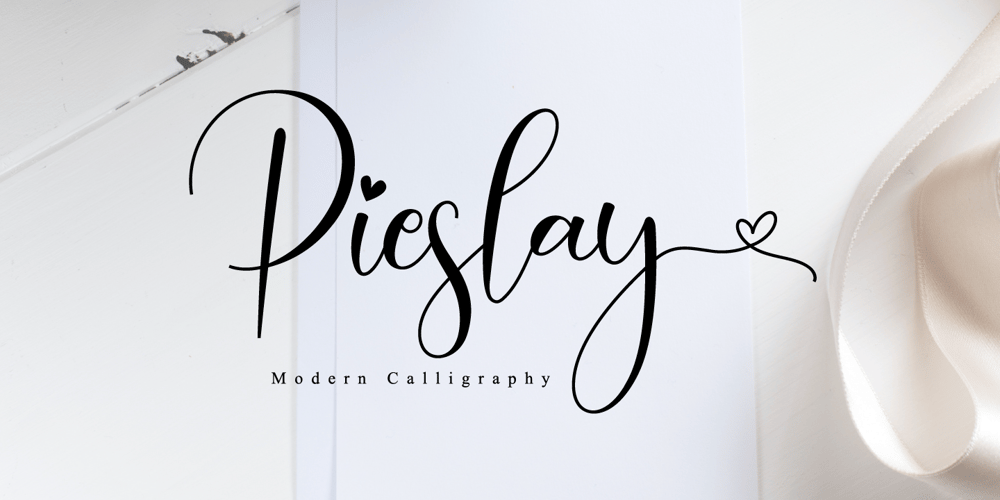
Pieslay Font Family was designed by Novia Himatunnisa and published by Nissa Nana. Pieslay contains 1 styles and family package options. Pieslay is a beautiful script font that has a classy, elegant, and modern look.